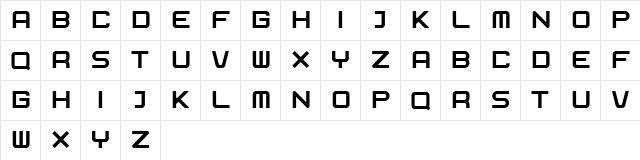
Exosphere Regular
Design Context for Exosphere Typeface
Exosphere offers clean, dependable letterforms without strong stylistic allegiance, making it a practical choice for designers who need flexibility.